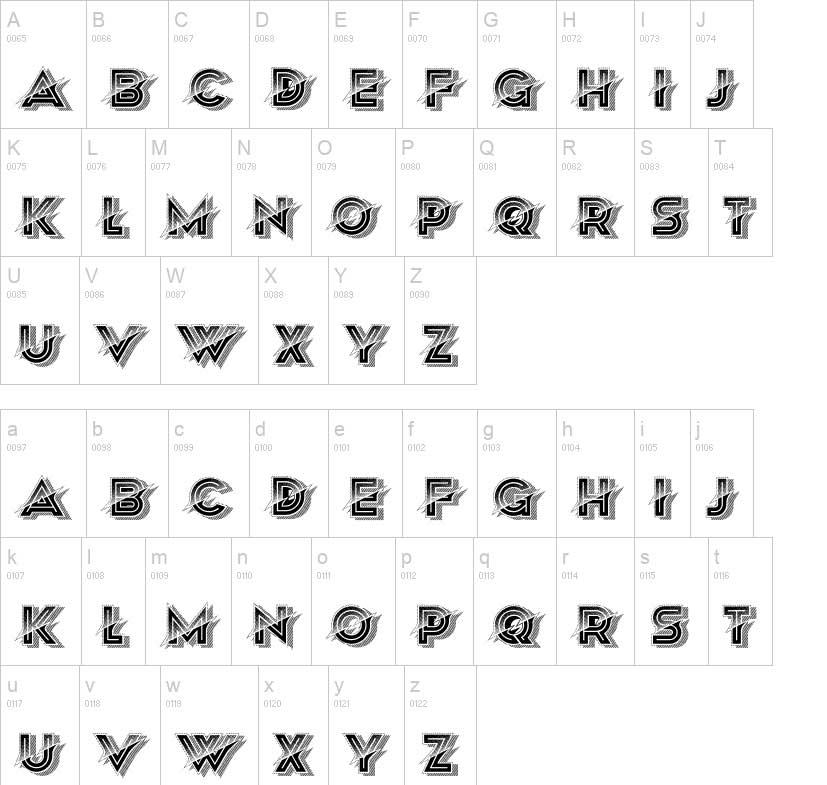
Lunatic is a cool, bold and modern looking display font. This font is suitable for designs such as t-shirts, sportswear, logos, advertisements, clothing, and more.